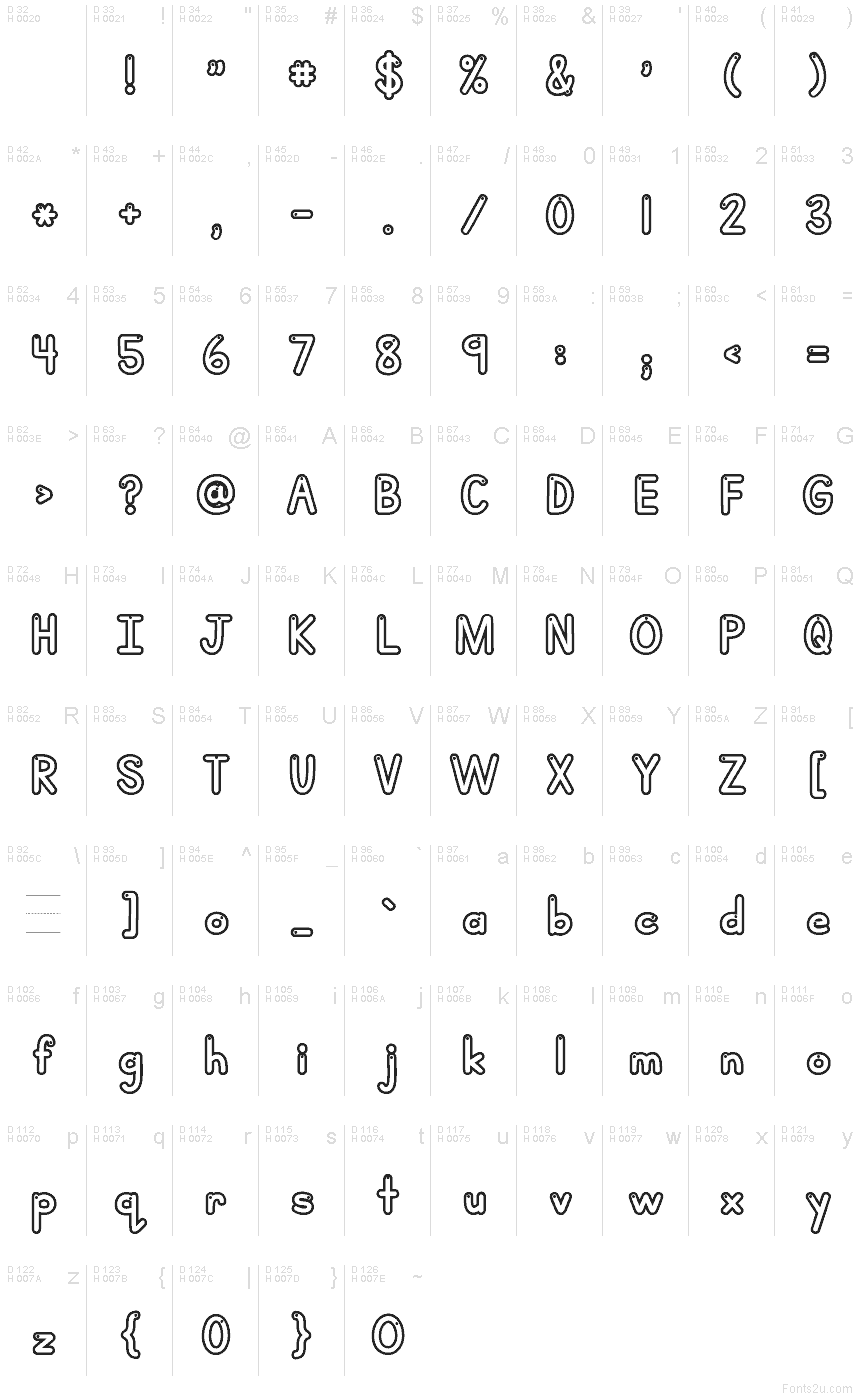
KG Teacher Created Outline 3
KG Teacher Created Outline 3 font by Kimberly Geswein is a free school script typeface from the KG Teacher Created family. Its bubbly, rounded letters sit inside a clean outline, giving you that marker-drawn, classroom feel without the mess. Lines are even and friendly, with generous spacing that keeps words readable at a glance—great when you need big, cheerful text that kids can trace or color in.
Using KG Teacher Created Outline 3, headlines pop on bulletin boards, worksheets, flashcards, name tags, kids’ party invites, and educational app screens. The outlined strokes invite crayons and markers, turning type into an activity as much as a label. Pair this free font with a simple sans for body copy, or fill the outlines with color at larger sizes for instant hallway impact.